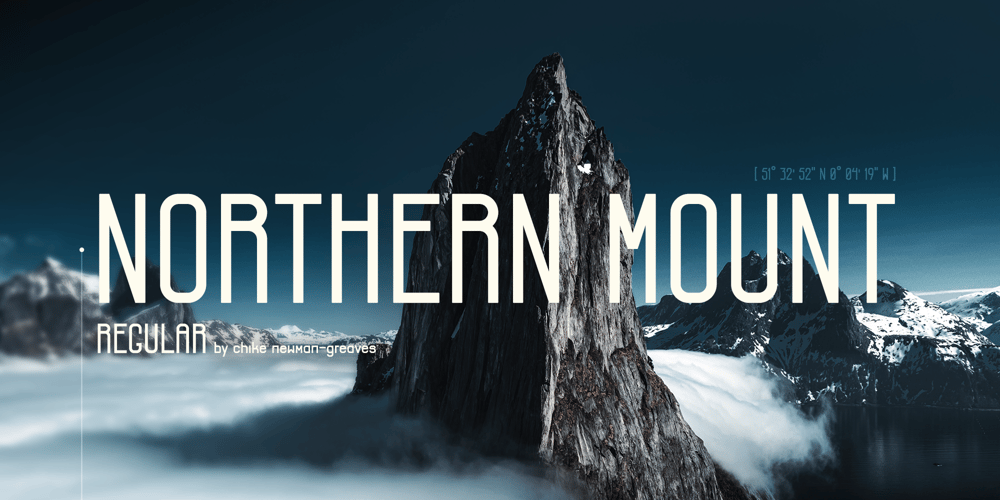
Northern Mount Font Family was designed by Chike Newman-Greaves and published by FontsByCheeks. Northern Mount contains 1 styles and family package options. A modern, high impact, display font – Northern Mount is the first in the four part collection of fonts designed by Chike Newman-Greaves. Starting life as a side project on his creative bucket list, and now with over 550+ glyphs, Northern Mount is the perfect font for a bold ad campaign, key artwork or comic book cover. Its high bars and long stems take inspiration from an Art Deco era, its lowercase letters – clean, minimal.